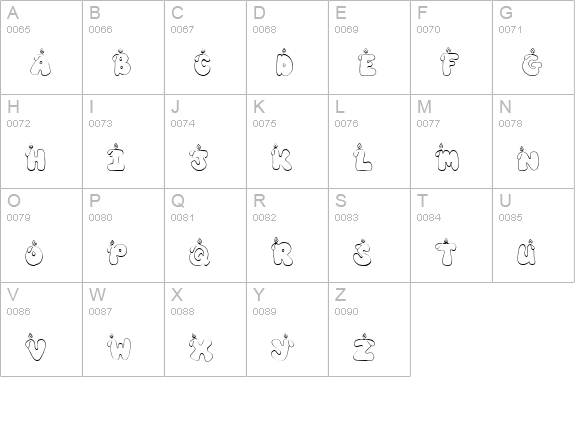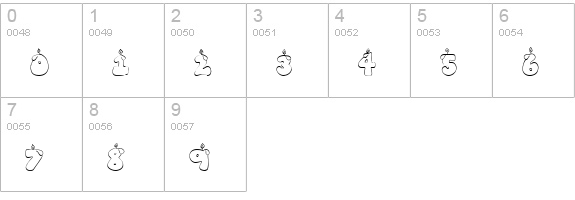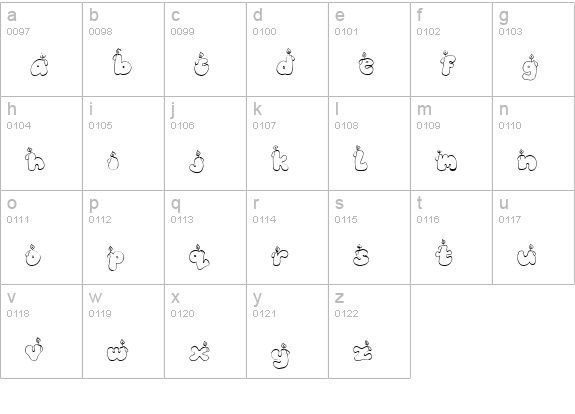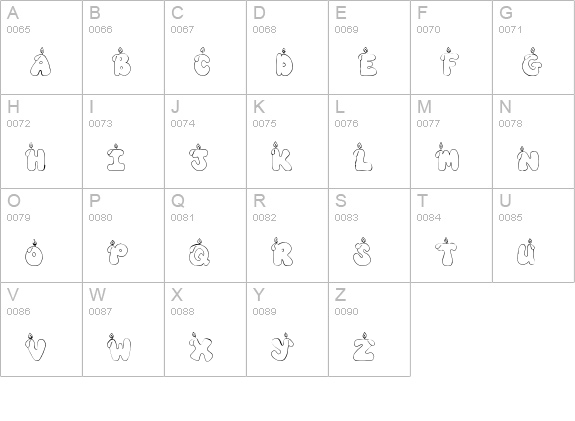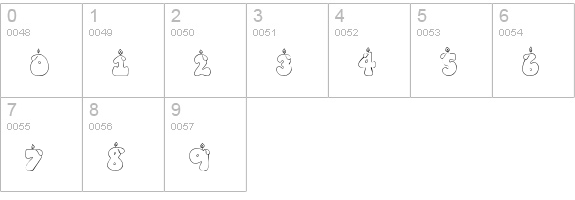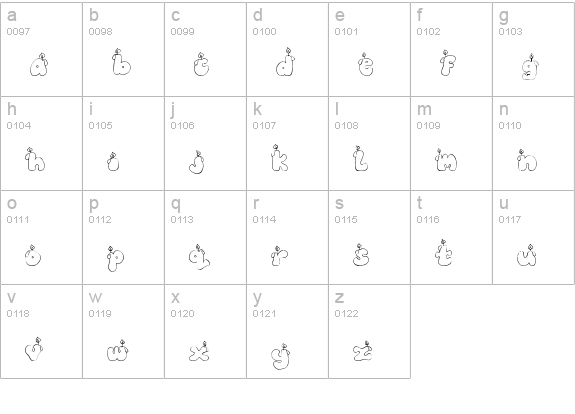
Introducing CK Candles font, a beautifully crafted typeface that exudes elegance and sophistication. With its unique design featuring delicate curves and flowing lines, this font is perfect for adding a touch of charm to your projects. CK Candles font is available for free download at FontsMarket.com, making it accessible to all designers and creatives looking to enhance their work with a touch of class. Whether you're working on invitations, branding, or any other creative project, CK Candles font is sure to elevate your designs to the next level. Download it today and experience the beauty and versatility of this stunning typeface.